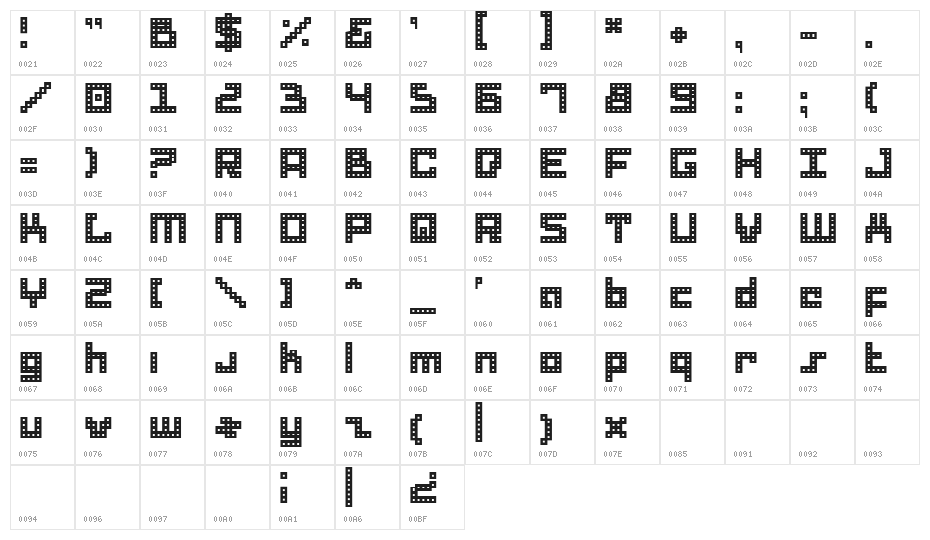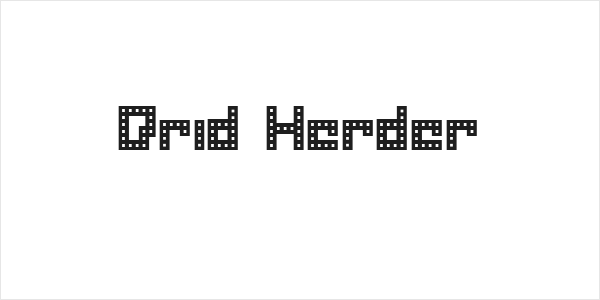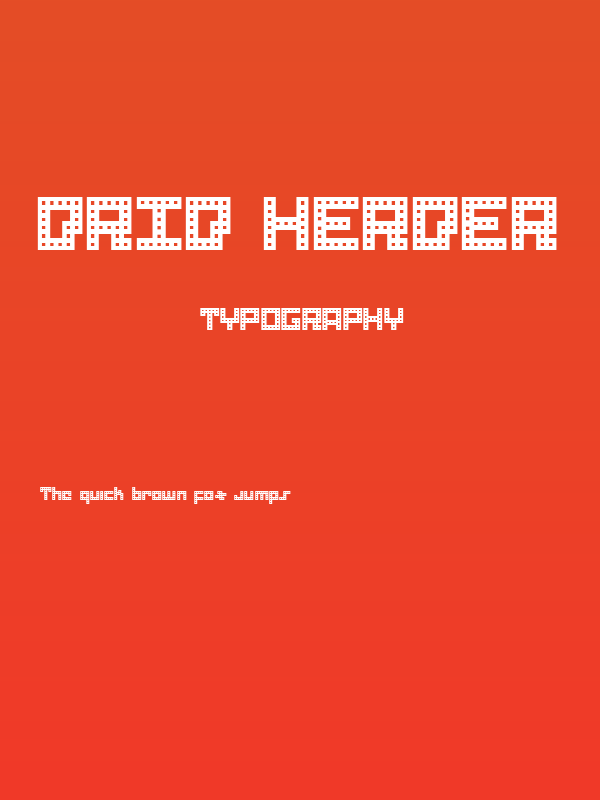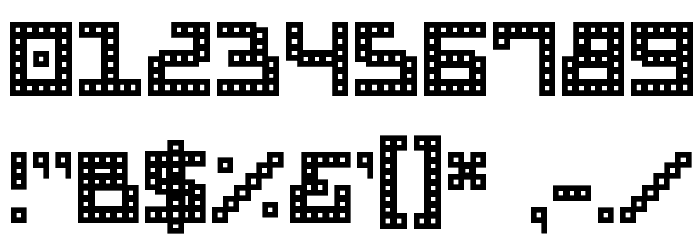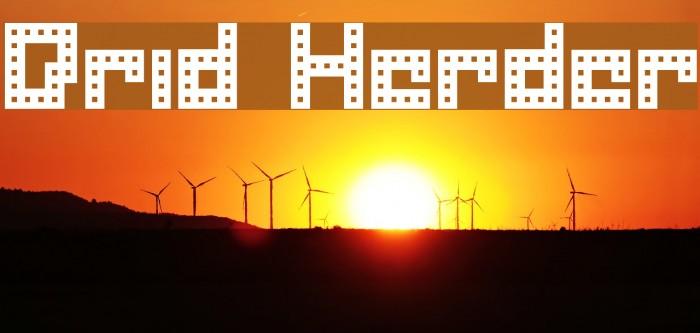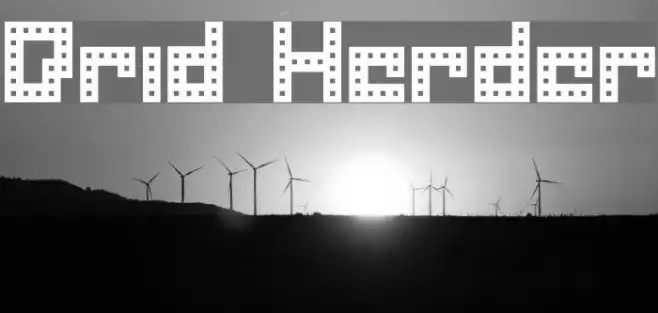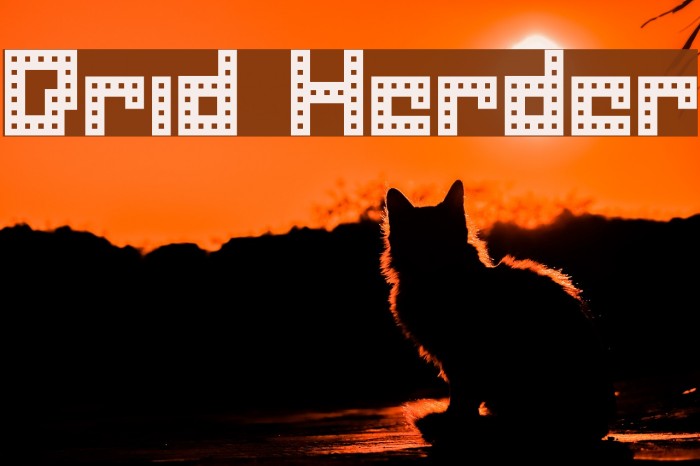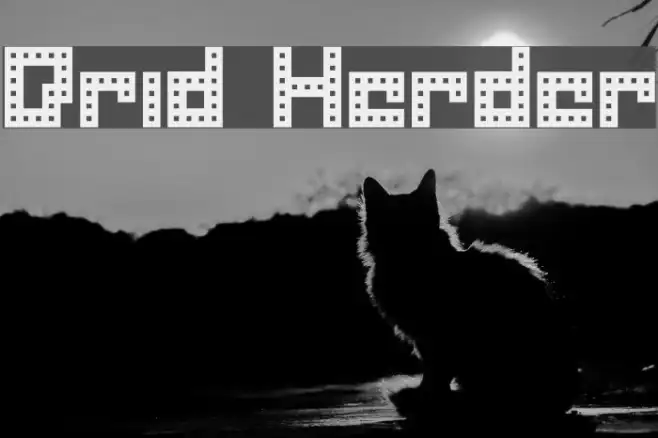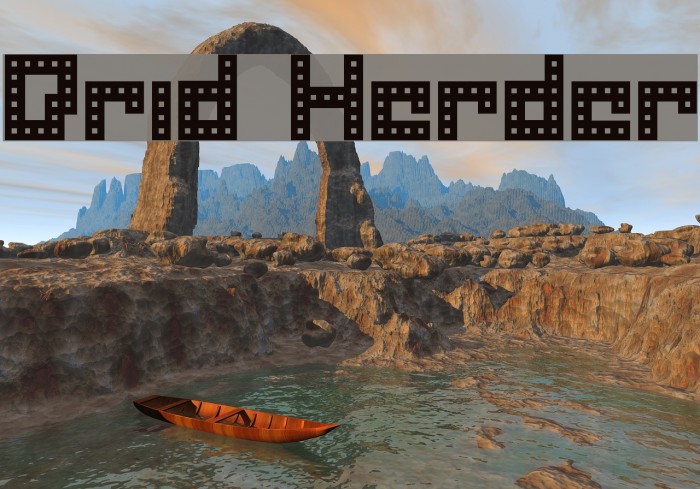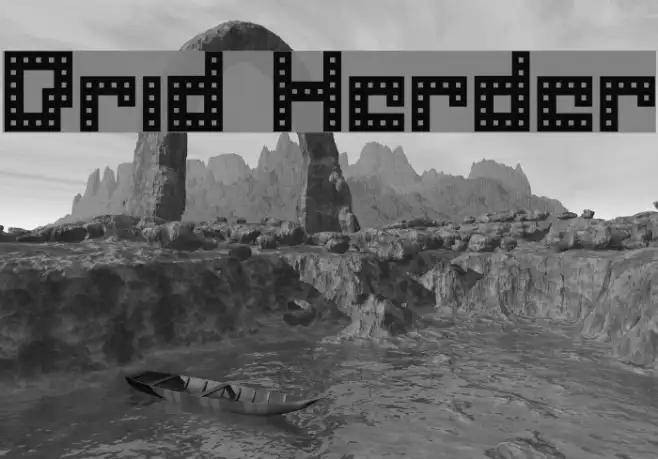
Drid Herder Font
Drid Herder Description
This font features a unique and playful design with a dotted pattern that forms each character. The letters are constructed from a grid-like structure, giving them a pixelated and retro appearance. The uniformity of the dots creates a cohesive look across all characters, including uppercase, lowercase, numbers, and special symbols. This style is reminiscent of digital displays or arcade games, making it stand out with its distinct aesthetic. The font's geometric nature and consistent spacing contribute to its modern and decorative appeal, suitable for creative and eye-catching designs.
| Overall Style | Retro, Decorative |
| Use Case | Logos, Posters, Digital Art |
| Proposed Projects | Ideal for digital art, retro-themed designs, game interfaces, and creative posters. |